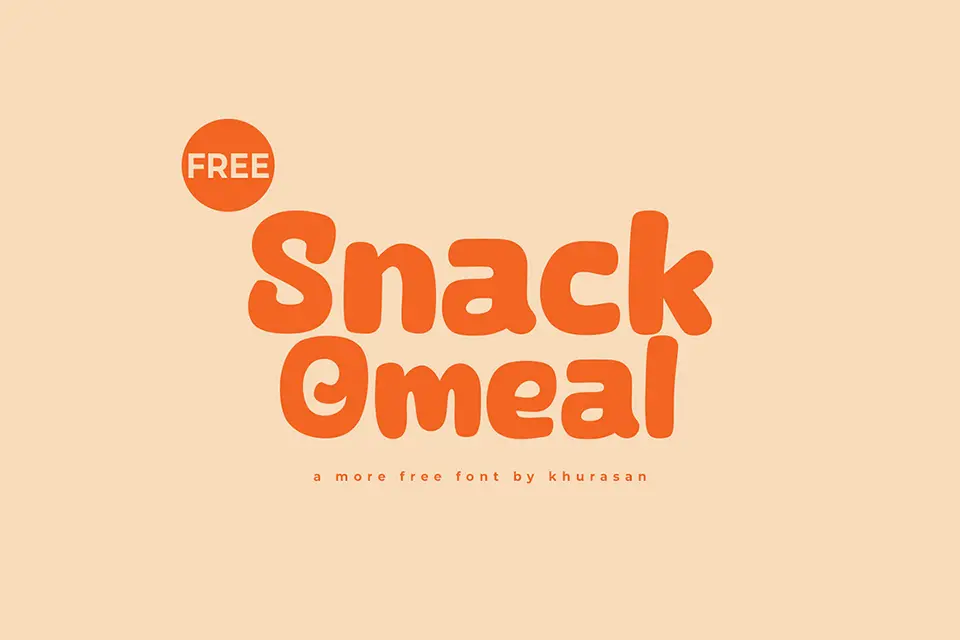
Snack Omeal Font
Snack Omeal is a modern and cute display font, perfect for posters, logos, magazines, book covers, banners, and more! Use this amazing font to create lovely designs. Its whimsical design and subtle irregularities give it a delightful, approachable feel, making it ideal for children’s books, greeting cards, eco-friendly branding, and cozy social media graphics. Add it to your creative projects and watch them stand out!